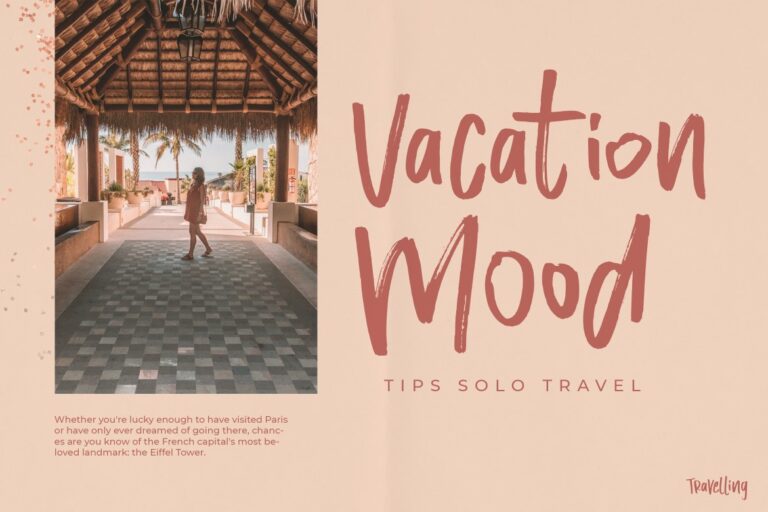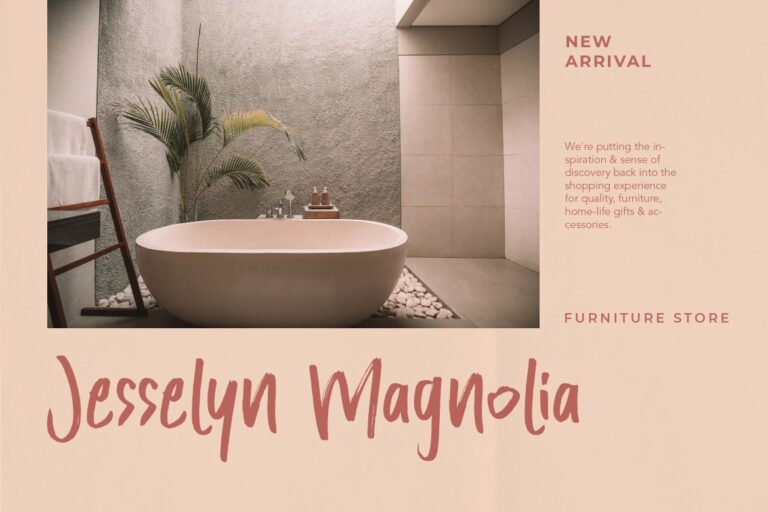
Remember Moment
This is a brush script font made manually in paper and dry brush pen.
Good and suitable for modern design project such as blog, web, logo, clothing, advertisement and book cover